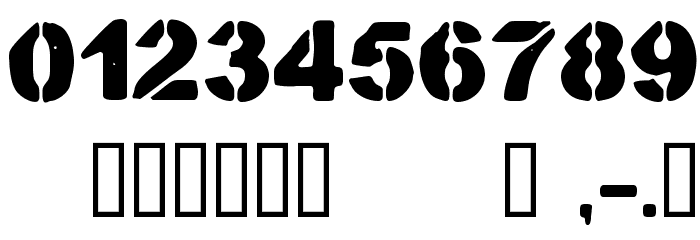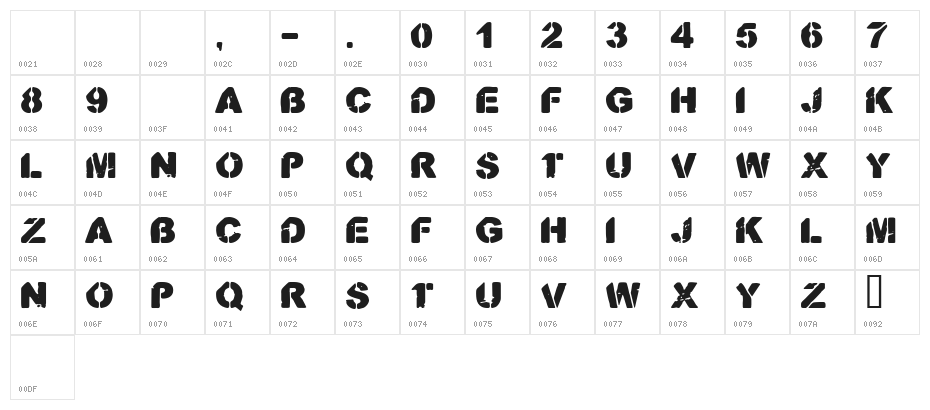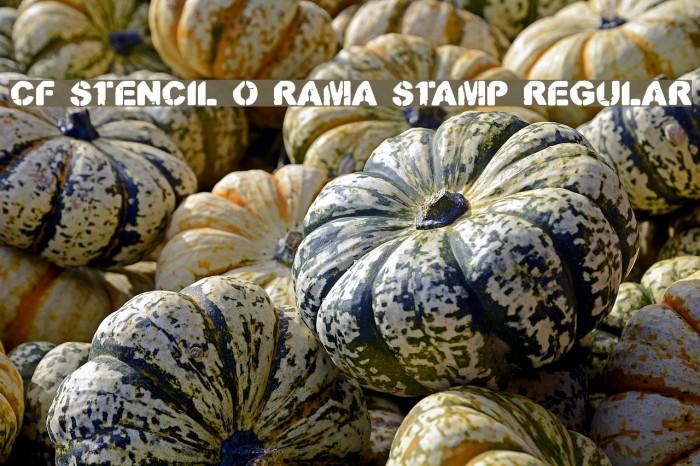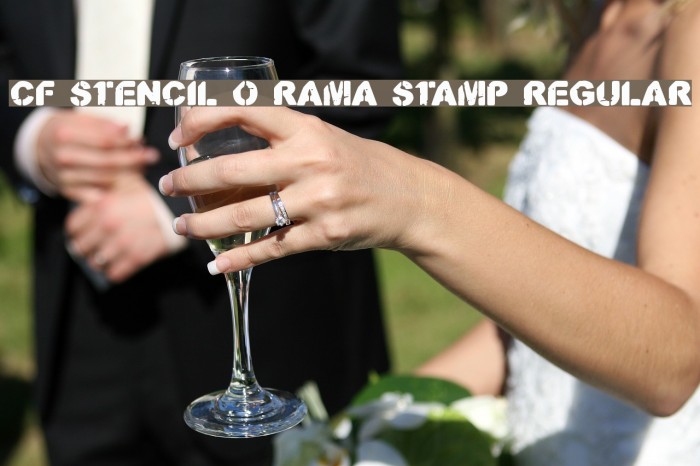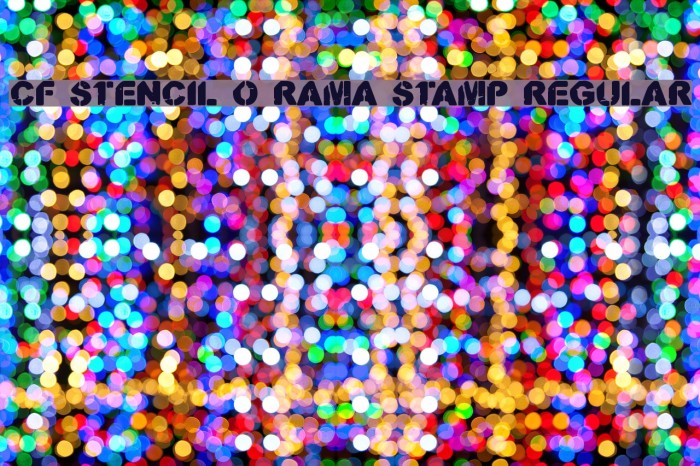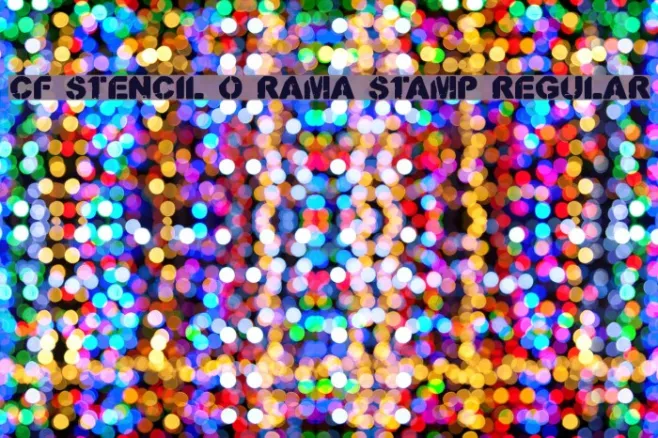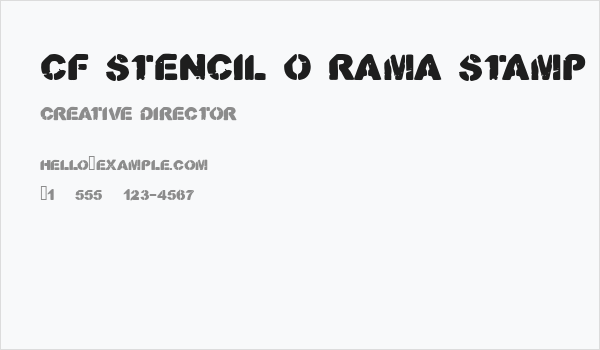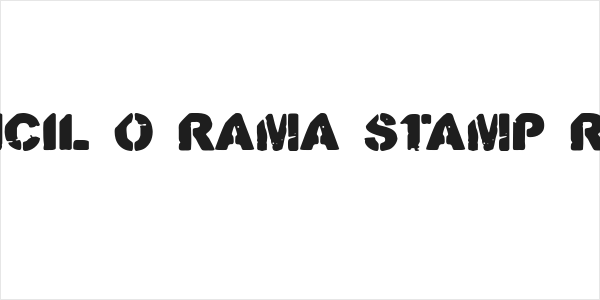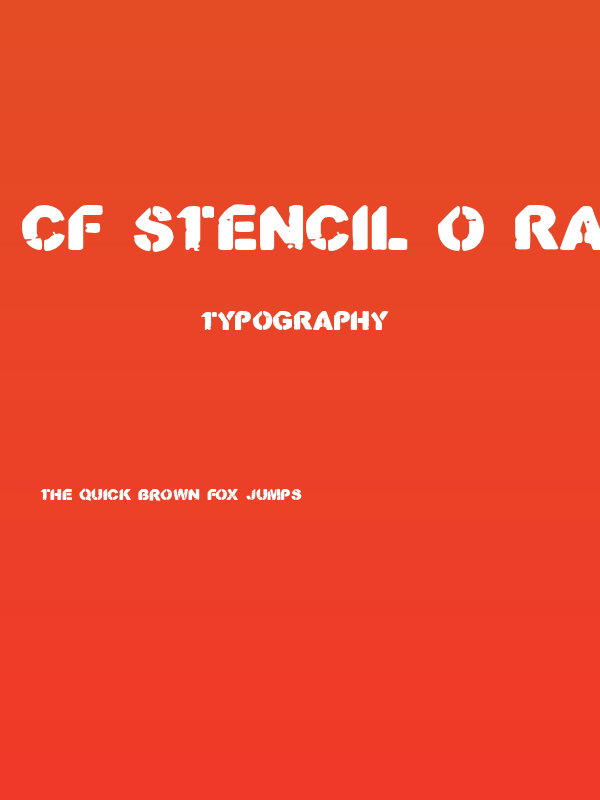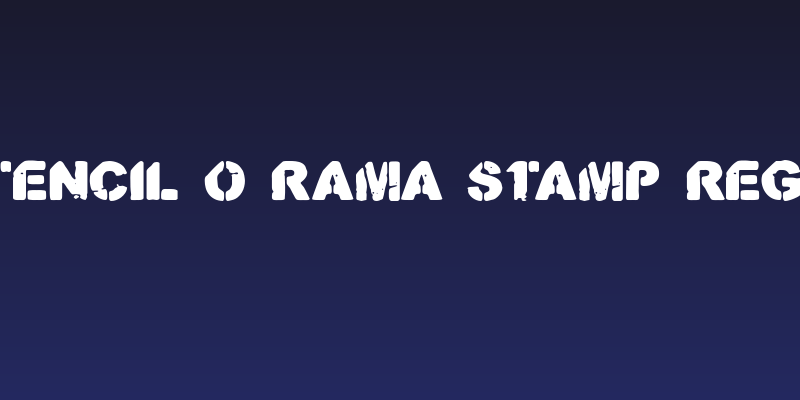
CF Stencil O Rama Stamp Regular Font
CF Stencil O Rama Stamp Regular Description
This font features a bold, stencil-inspired design with a rugged, distressed appearance. The characters are bold and impactful, with a unique cut-out style that mimics the look of stenciled letters. The distressed texture adds a vintage, industrial feel, making it ideal for projects that require a strong, eye-catching typeface. The uppercase letters are particularly striking, with consistent spacing and a uniform width that enhances readability. The numbers and special characters maintain the same bold, stencil aesthetic, ensuring a cohesive look across all text elements.
| Overall Style | Vintage, Industrial |
| Proposed Projects | Ideal for posters, branding, packaging, and any design requiring a bold, industrial look. |